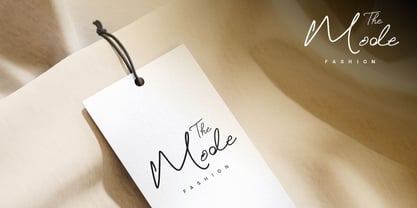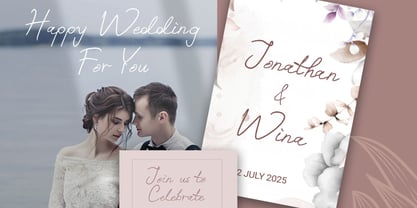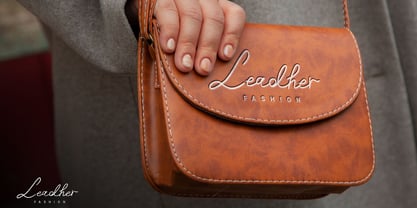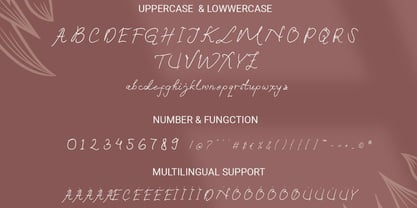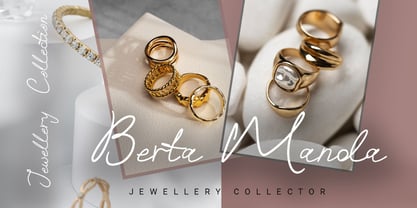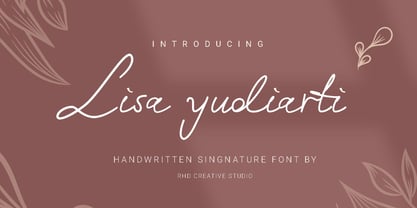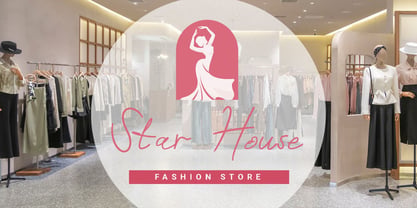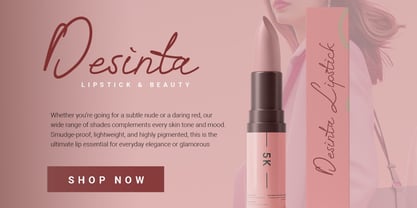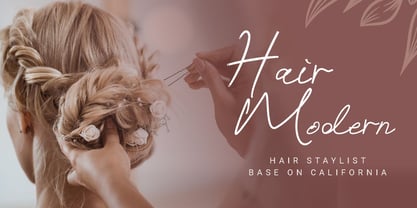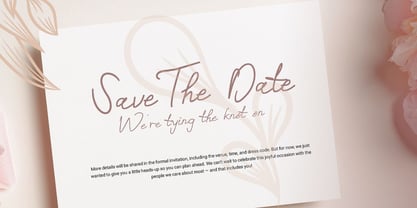
Lisa Yudiarti
by RHD Creative
The Lisa Yudiarti Font Family was designed by and published by RHD Creative. Lisa Yudiarti contains 1 styles. More about this family
Hello everyone, I would like to introduce Lisa Yudiarti - Handwritten Signature Font.
Lisa Yudiarti - Handwritten Signature Font with Handmade character. Lisa Yudiarti - Handwritten Signature Font , Modern font to make your design project stand out! Asifa Signature is a perfectly choice for any creative endeavor, creating, modern, chic, lifestyle design such as logotype, title, cover, branding, invitations, wedding designs, display and magazine, social media posts, advertisements, printed quotes, product packaging, corporate brand, product designs, labels, photography, watermarks, special events and any other project with modern touch.